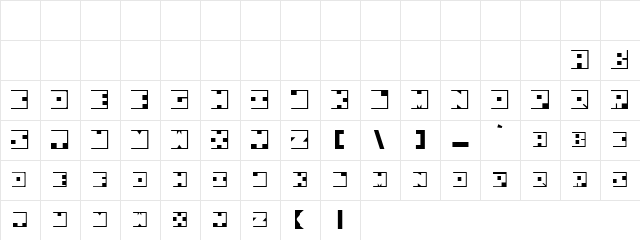
Squaresville2 Regular
Design Context for Squaresville2 Typeface
Squaresville2 is a composed and adaptable typeface that performs quietly and consistently across a wide range of design contexts.